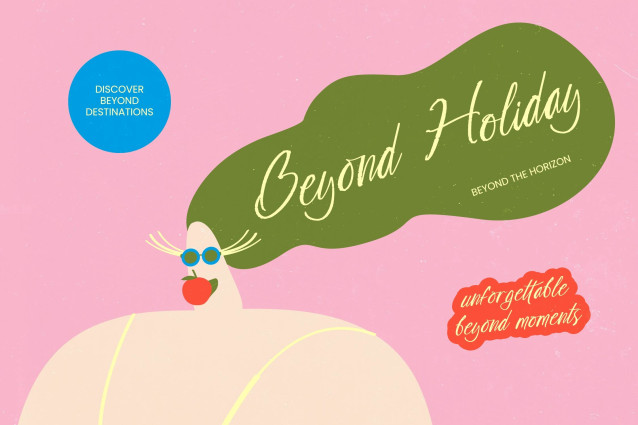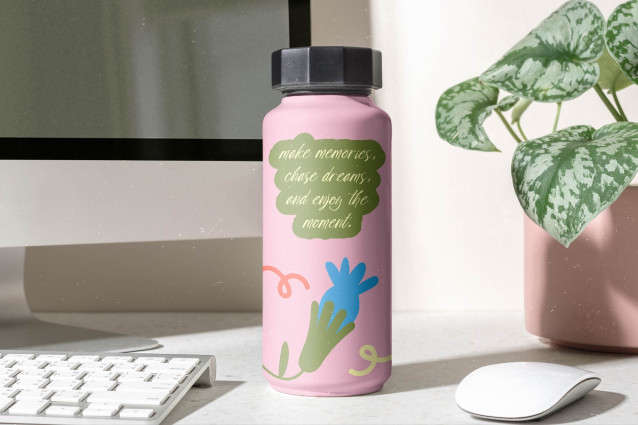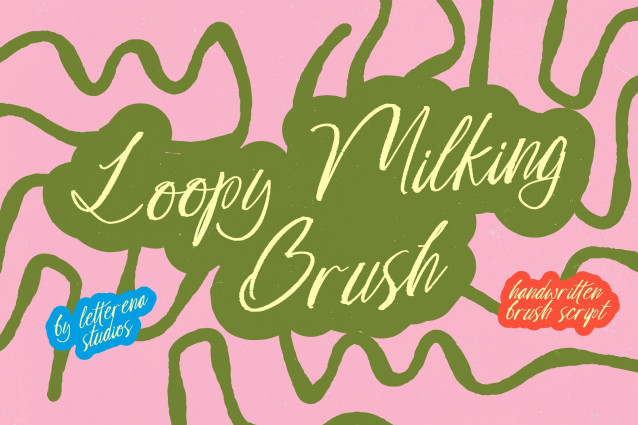
Elevate your creative vision with the expressive charm and organic flow of Loopy Milking Brush – Handwritten Brush Script. This typeface captures the raw energy of hand-painted strokes, offering a dynamic aesthetic that feels both personal and professional. Its fluid motion and textured edges provide an authentic artisan feel, making it an essential tool for designers looking to inject personality into their work while maintaining a high-end finish.
Designed for designers who demand authenticity, this font is the ultimate solution for impactful visual storytelling. Loopy Milking Brush – Handwritten Brush Script is perfect for luxury branding, premium packaging, and editorial design where a distinctive, human touch is required. From striking headlines to sophisticated logo design and lifestyle marketing, its versatile nature ensures your message stands out in a crowded marketplace with unrivaled character.
Break geographical barriers and connect with a diverse audience through professional-grade character sets that ensure consistency. With its extensive multilingual support, Loopy Milking Brush – Handwritten Brush Script adapts seamlessly across global markets, making it incredibly versatile for international projects. This global adaptability allows brands to maintain a cohesive identity across various languages, ensuring your creative message resonates with international clarity and style.